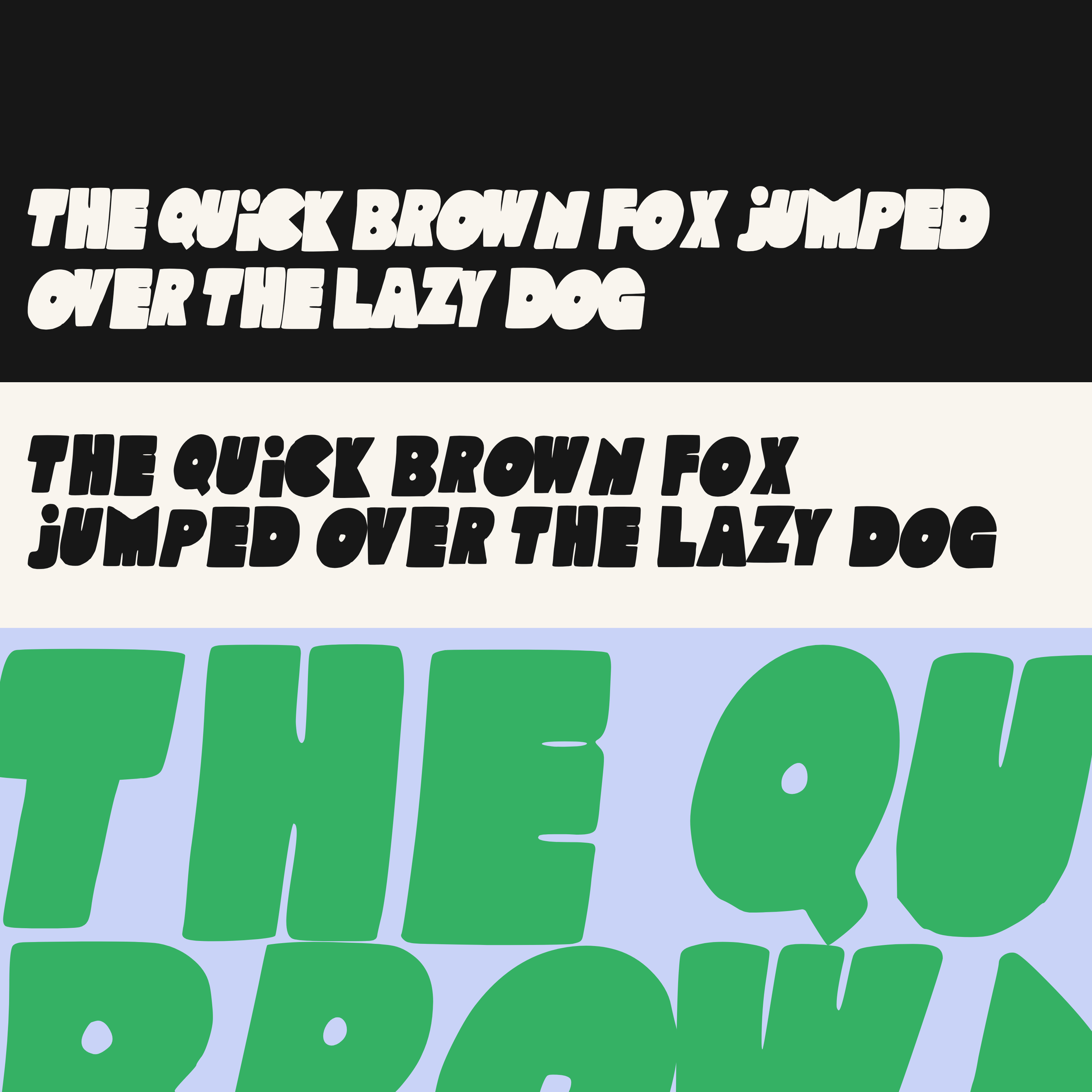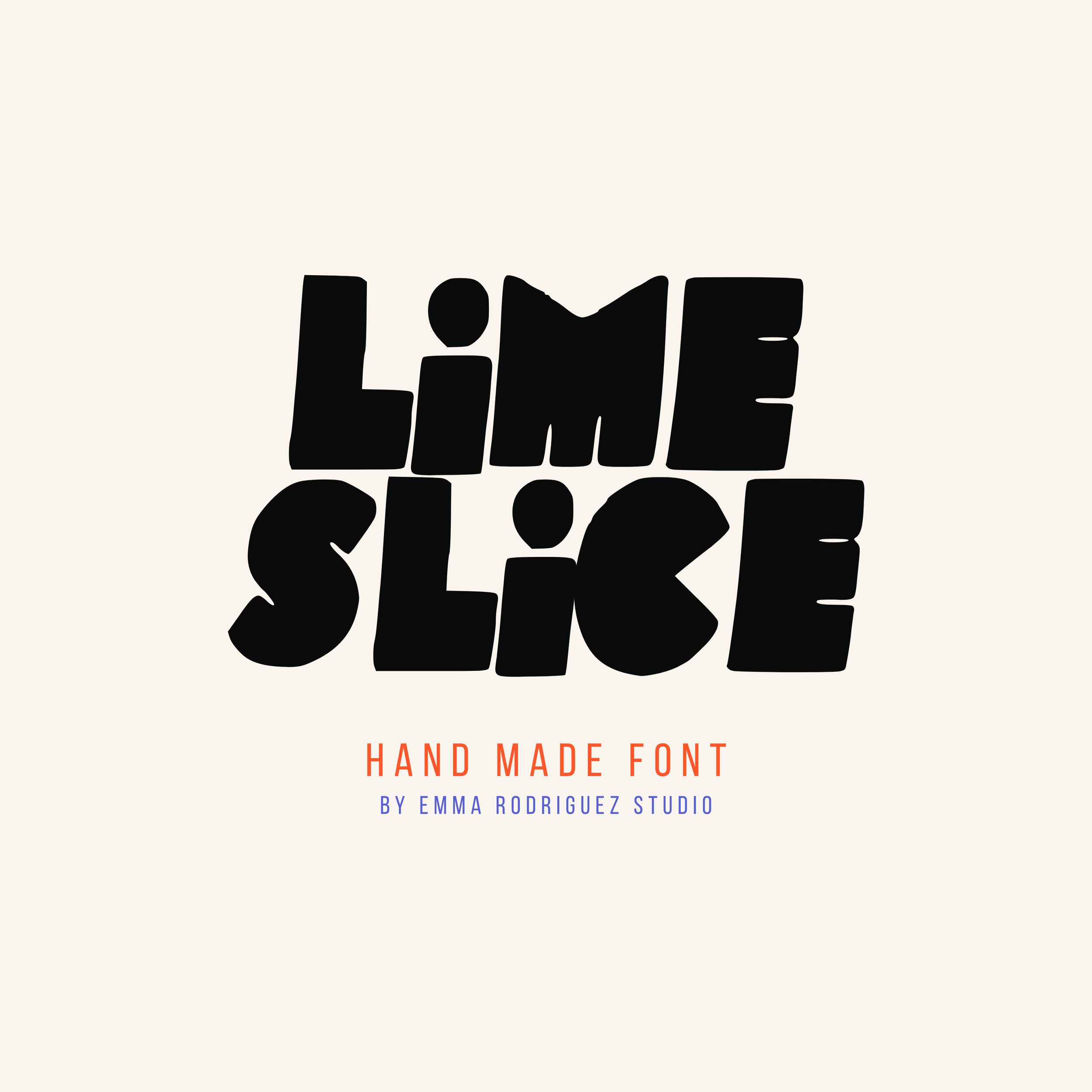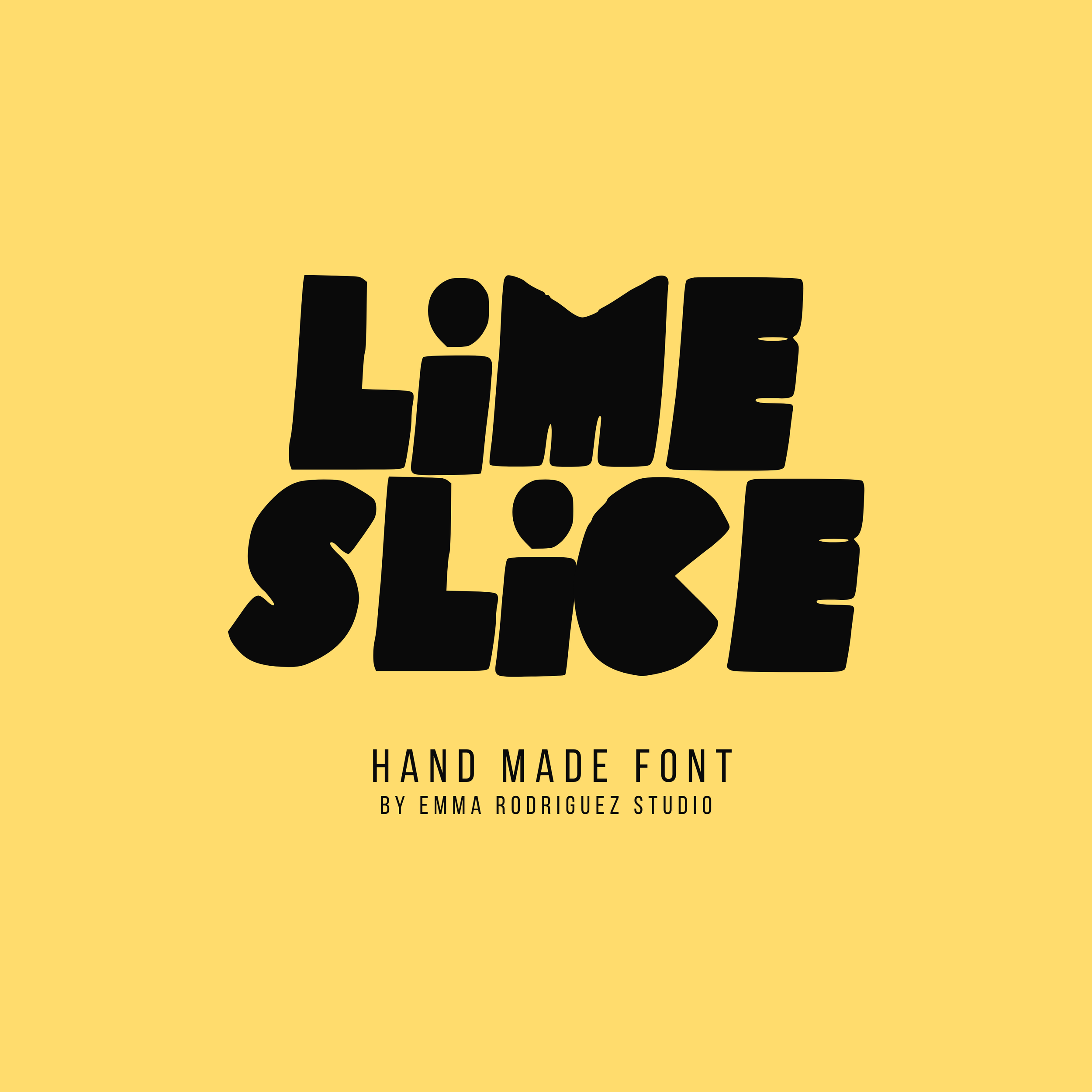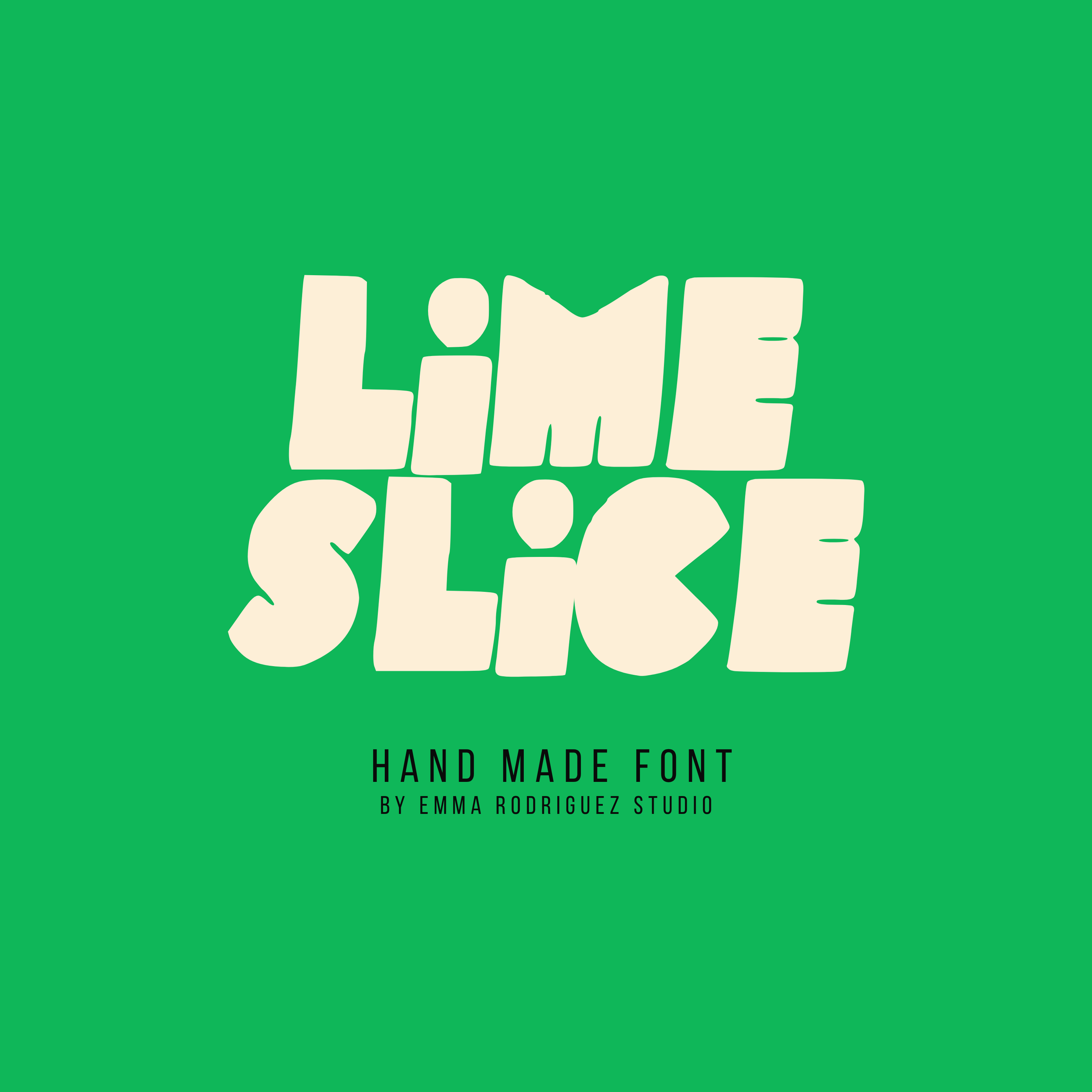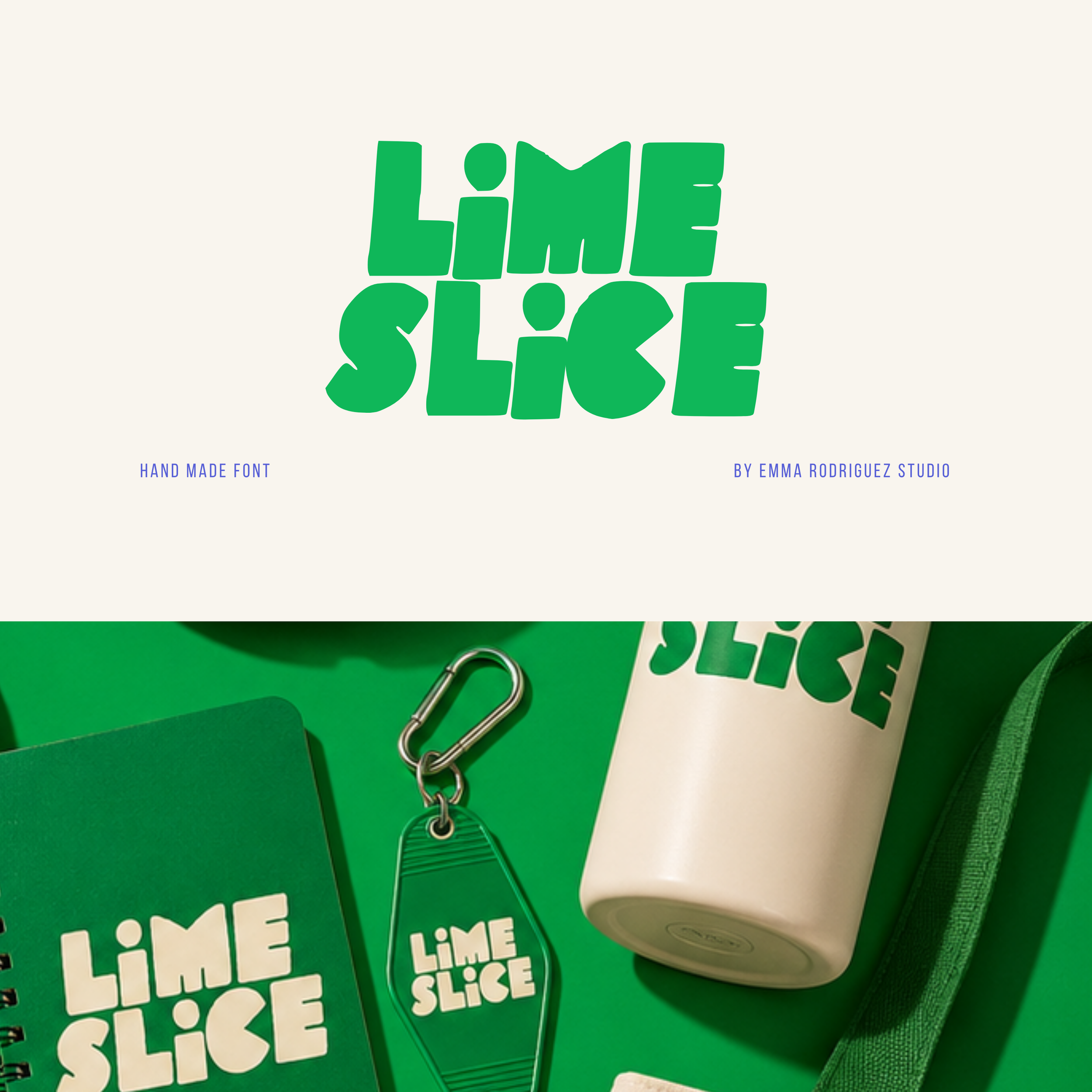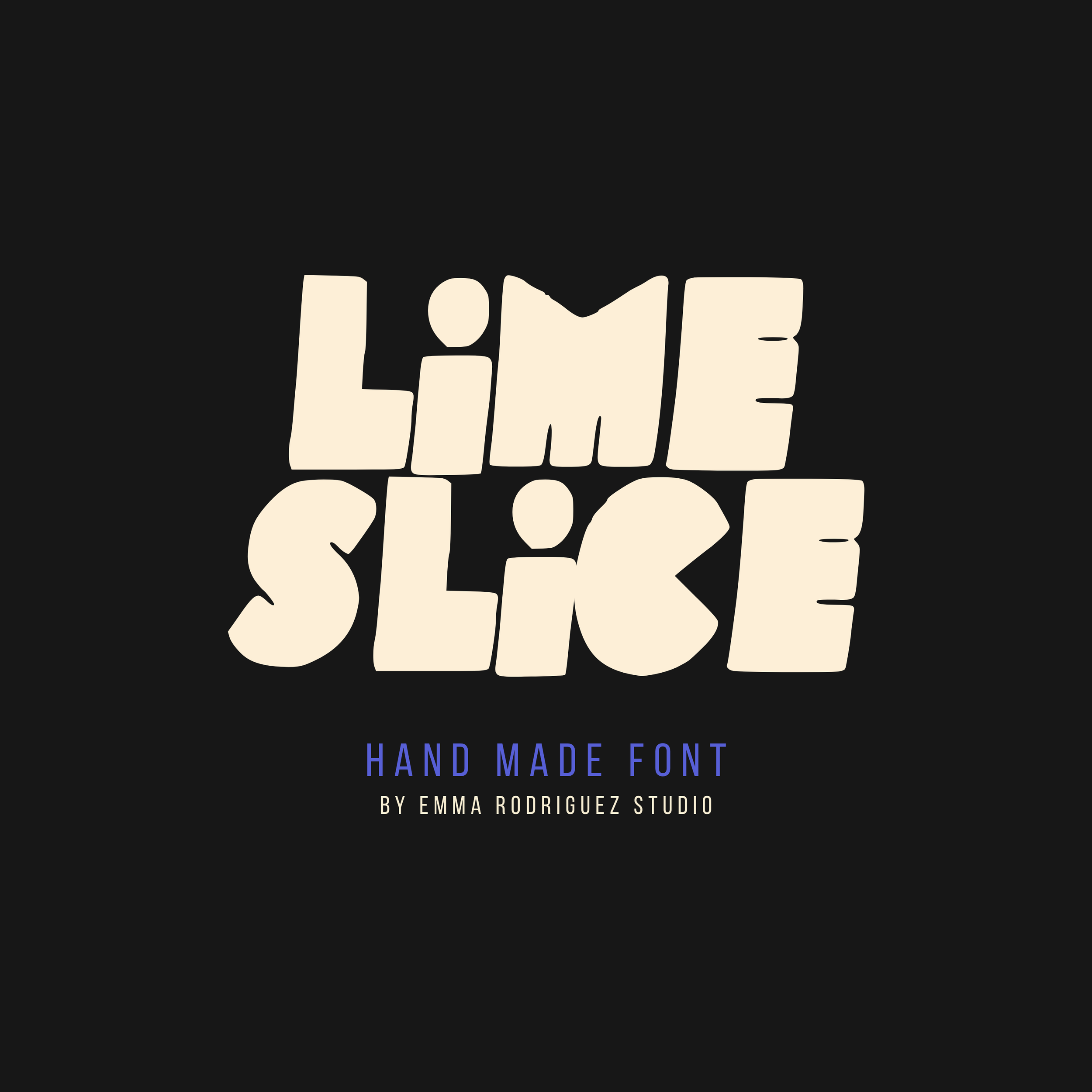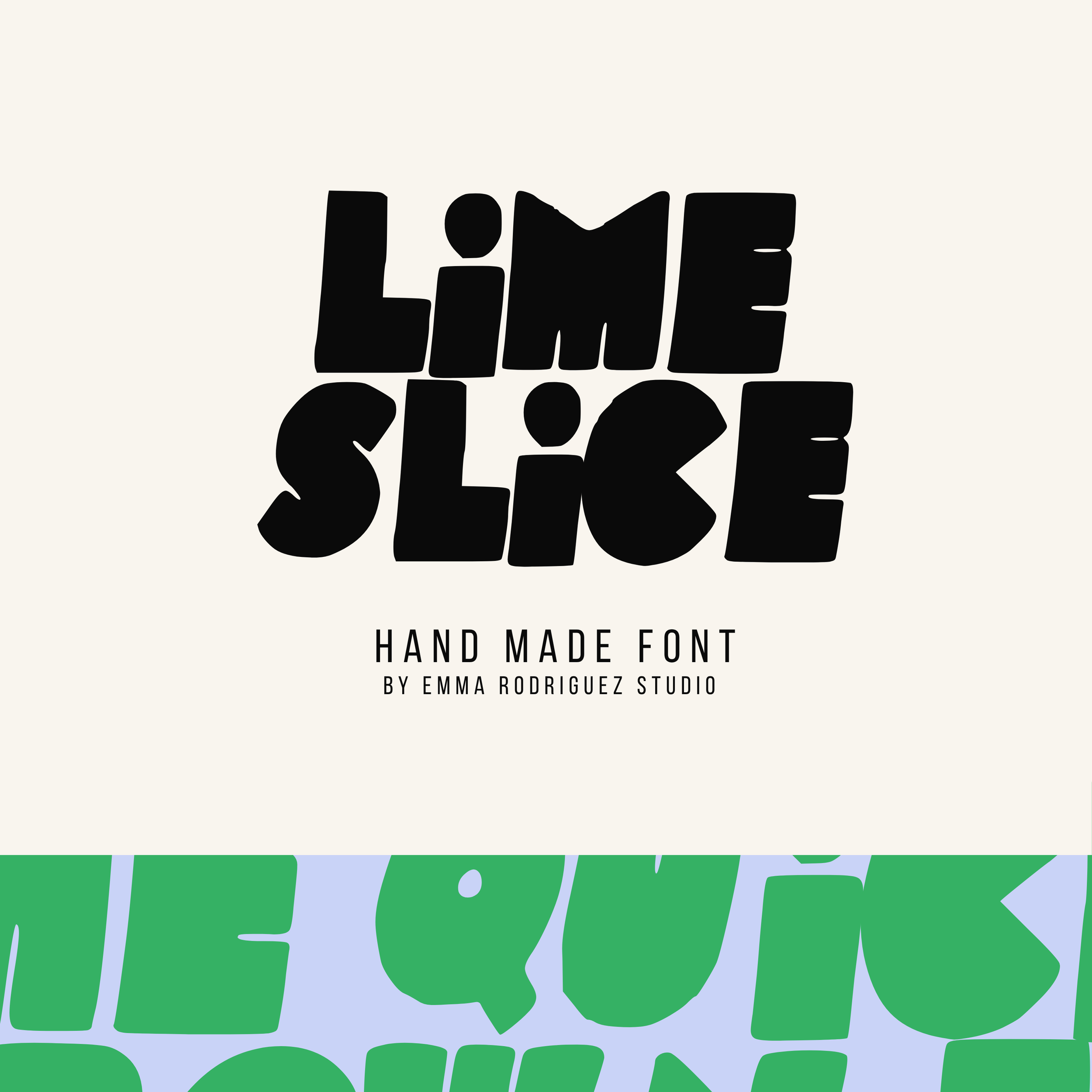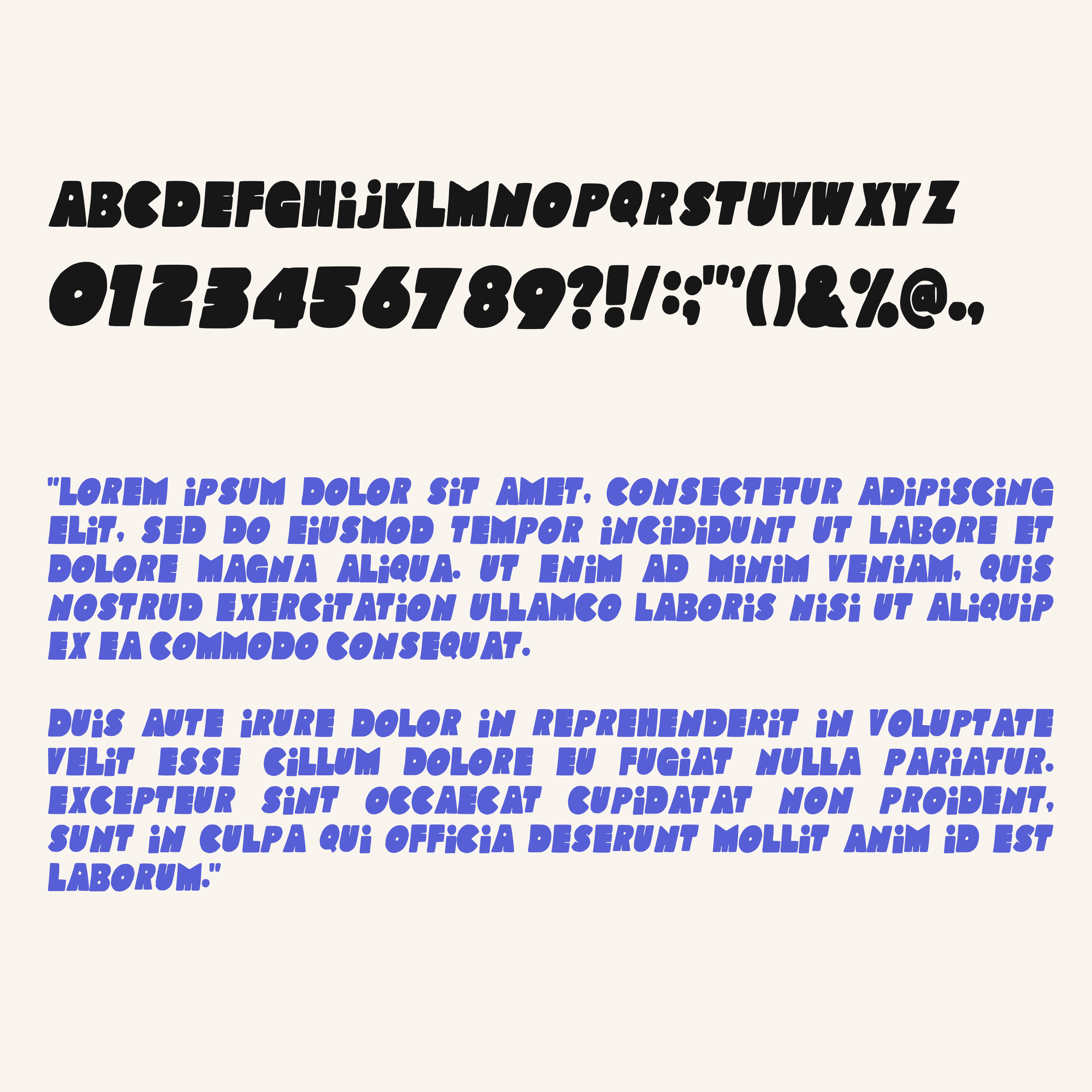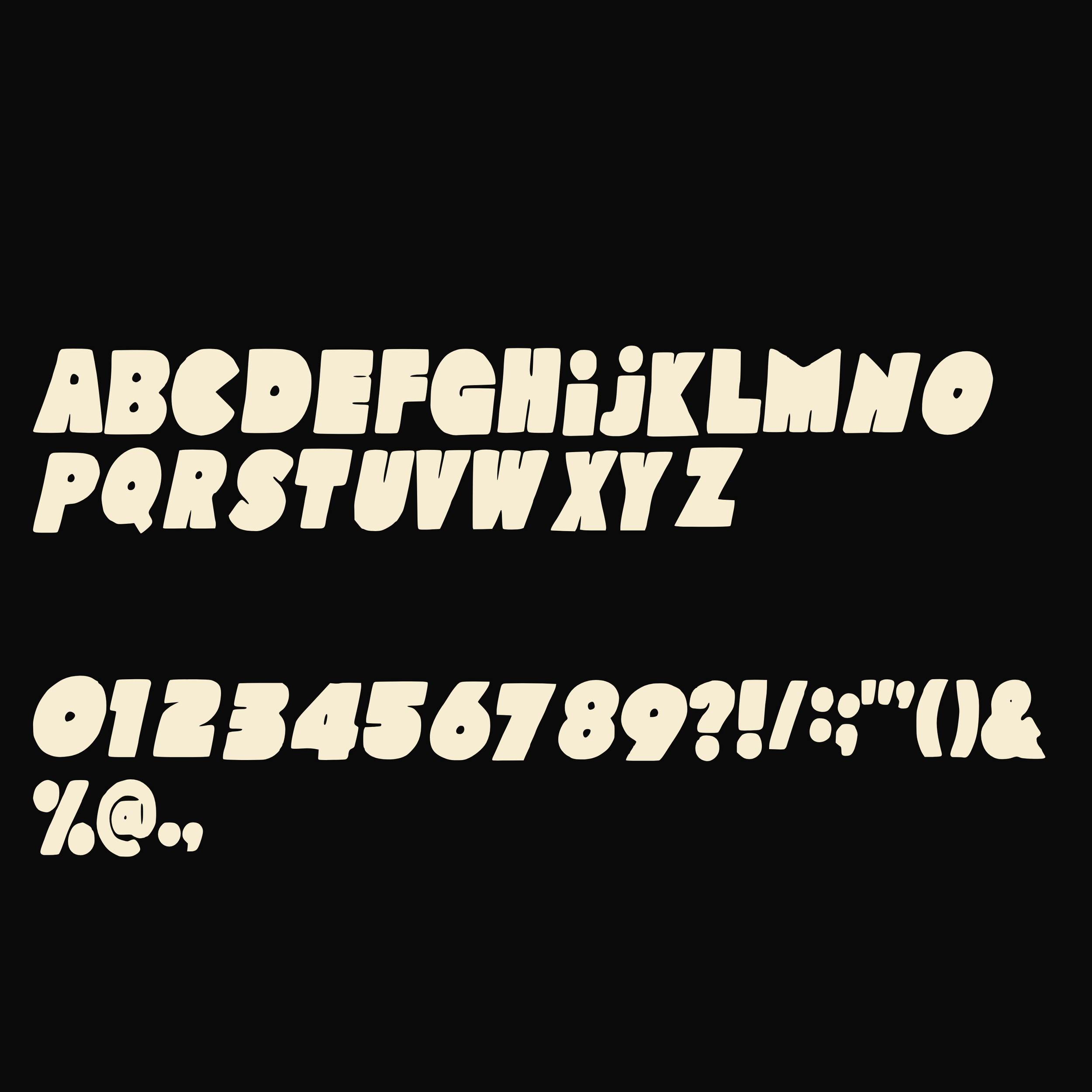
Lime Slice Font - Chunky Edgy Type
Lime Slice is a bold handmade display font designed for creatives who want typography with real personality. Built with chunky inflated letterforms, playful curves, and intentionally uneven shapes, this all caps font brings a strong retro inspired energy to branding, posters, packaging, social media graphics, and editorial design.
The letterforms feel heavy, soft, expressive, and slightly imperfect in a way that gives layouts more movement and character. Inspired by contemporary retro typography trends, playful branding systems, and handmade graphic design styles, Lime Slice works perfectly when clean fonts feel too safe or generic.
This font is especially suited to graphic designers, artists, illustrators, branding studios, Etsy sellers, poster designers, musicians, and small creative businesses looking for typography that instantly adds visual personality.
• All caps letters
• Numbers 0–9
• Basic punctuation
With intentional differences in baselines and kerning, this font is by no means designed to be perfect, but instead created to bring fun character and a genuine handmade feel throughout. If you are looking for perfectly aligned digital typography, this may not be the font for you. The handmade imperfections and uneven structure are intentional parts of the font design and help give the typeface its bold playful character.
Fonts by Emma Rodriguez Studio are made to have personality. Expect naive shapes, wonky details, playful imperfections and type that doesn’t take itself too seriously. They’re not designed for clean, minimal branding. They’re for bold, quirky, maximalist projects that need something a little stranger, sillier and more expressive.